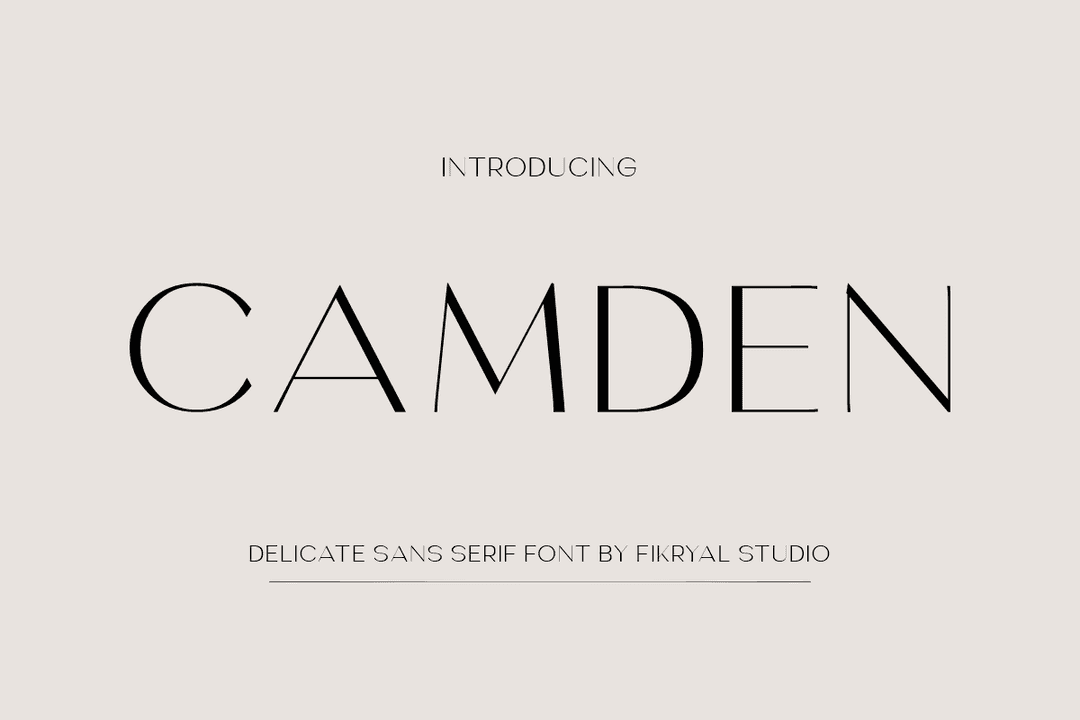
Discover Camden Font, part of the Sans Serif collection—a versatile and unique font perfect for adding a personal touch to your projects. Download it for free and enjoy crafting designs with style, from invitations to social media posts. This font is available exclusively for personal use, giving you the freedom to create without limits. Unlock your creativity with Camden Font today!
Camden, an elegant sans-serif font with all-caps style that exudes sophistication, was unveiled this month. Its sophisticated letterforms add a dash of elegance to any design while its wide support for multilingualism provides flexibility across various languages and typographic needs.